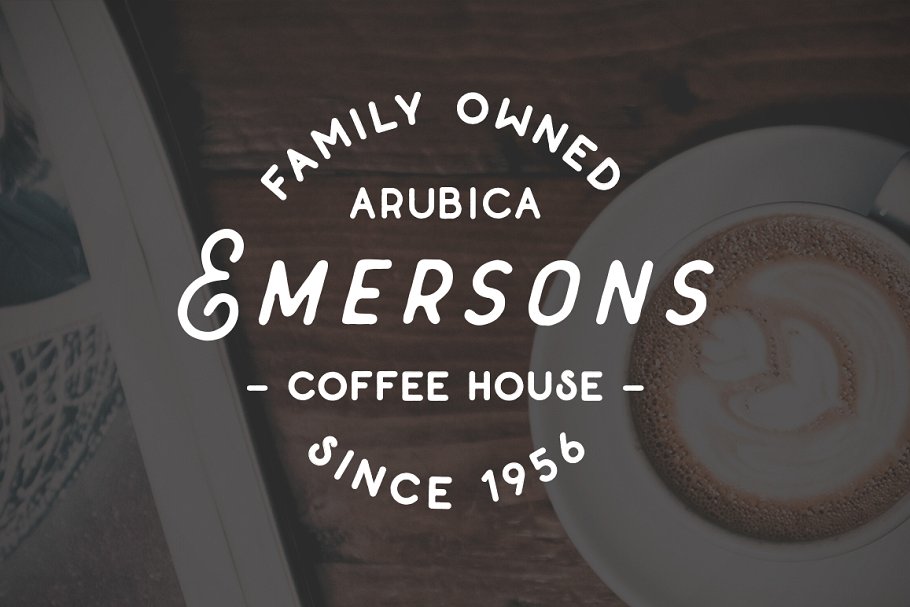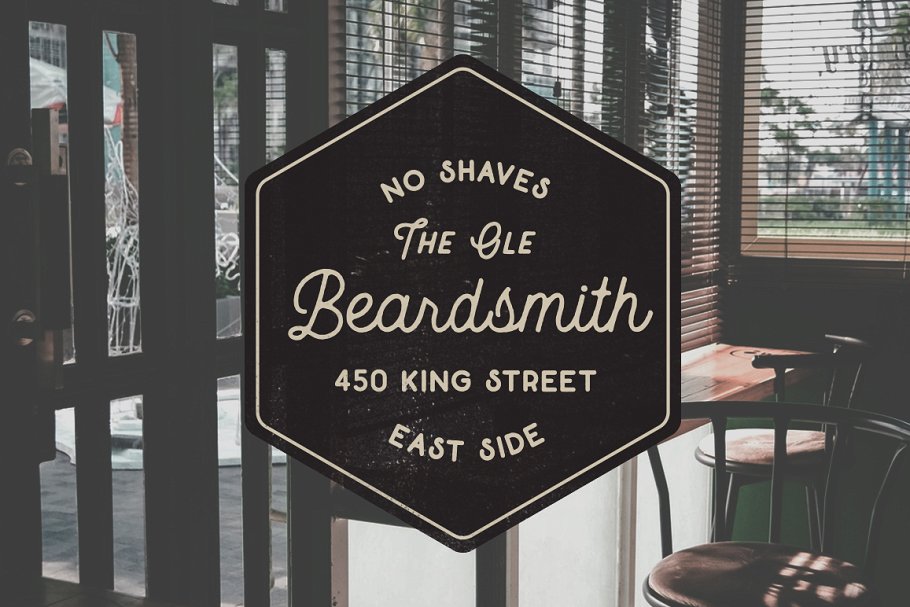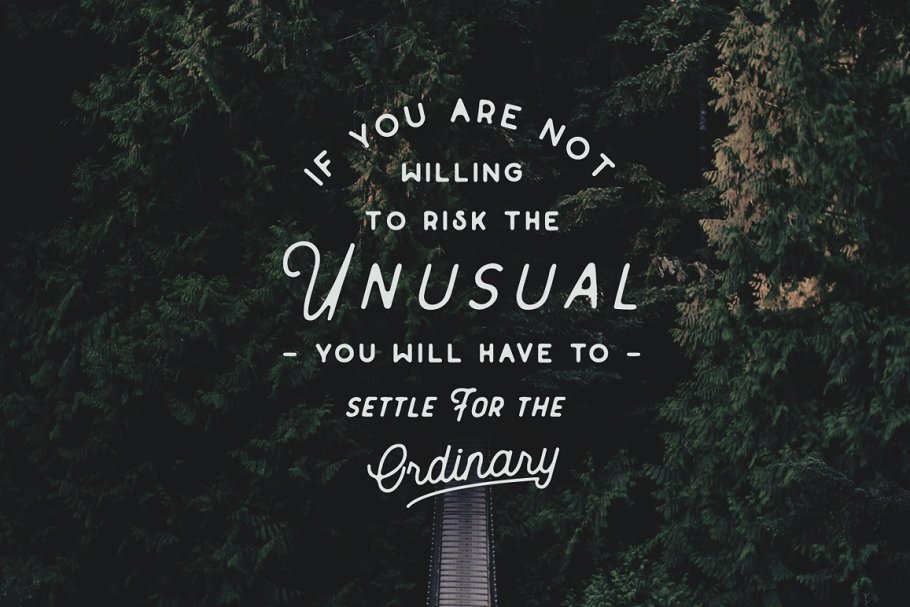
Restless Youth Bundle
The Restless Youth Bundle is comprised of 4 font files & 3 different type styles. Each can be paired together for an outstanding look! It's perfect for Logotypes & Type pieces. That's exactly the reason why I decided to make this product. I've always been a stickler for finding the right sans serif to go with script. There needed to be a consistency in style, texture, weight, etc. I think that The Restless Youth Bundle is perfect for people looking for this aesthetic.
- Hand Drawn Look & Feel
Every new typeface inspires new work. I think that The Restless Youth Bundle will be a great addition to your design arsenal!